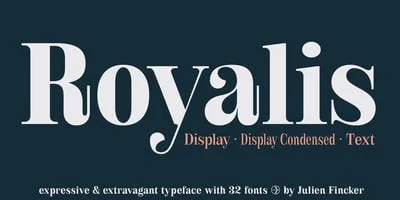
Royalis Font
Royalis Font is perfect for luxury crown jewelry branding, royal ceremony invitations, prestigious award ceremonies, high-end monarchy-themed events, exclusive palace hotel marketing, regal fashion collections, noble heritage museums, aristocratic family crests, royal court productions, imperial celebration materials, and any project that requires majestic royal character with sovereign elegance appeal.
What makes Royalis Font exciting is its magnificent embodiment of royal authority and imperial grandeur through ornately crafted letterforms that capture the timeless splendor of monarchical traditions and aristocratic heritage. This majestic typeface features regal proportions with crown-inspired details that convey sovereignty, nobility, and imperial distinction. The font's royal character adds instant monarchical credibility and aristocratic appeal to any design, making it perfect for brands celebrating royal heritage and sovereign elegance.
Royalis Font comes in multiple font families including Regular, Bold, Light, Ornate, Condensed, and Imperial variations, providing designers with comprehensive options to create royal compositions and achieve the perfect monarchical aesthetic for sovereignty-focused design projects.
Whether you're developing royal heritage branding, creating aristocratic event materials, or designing imperial celebration campaigns, Royalis Font offers the perfect solution for projects demanding authentic royal character and monarchical sophistication. This majestic typeface excels in display applications where sovereign presence is essential, ensuring your designs communicate royal excellence and imperial dignity. The ornate character and royal styling of Royalis Font make it an indispensable tool for designers who prioritize royal heritage, monarchical traditions, and aristocratic elegance in their typographic selections.